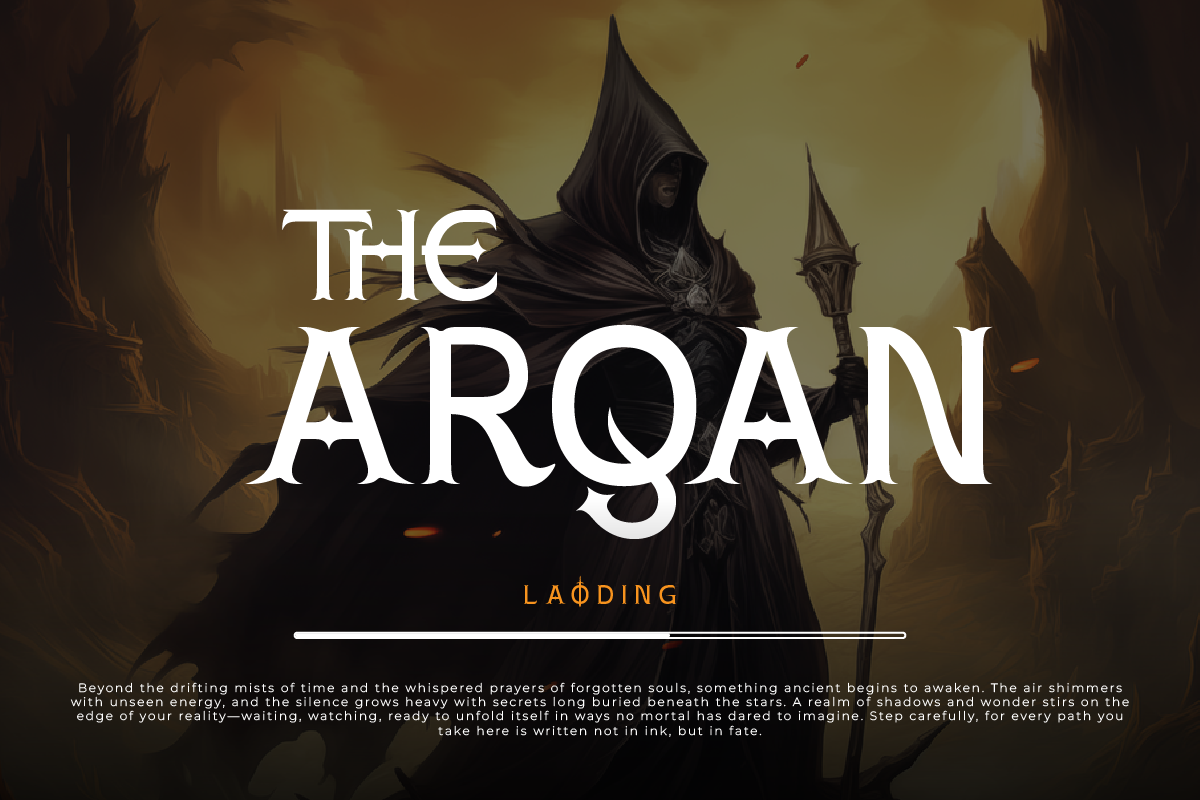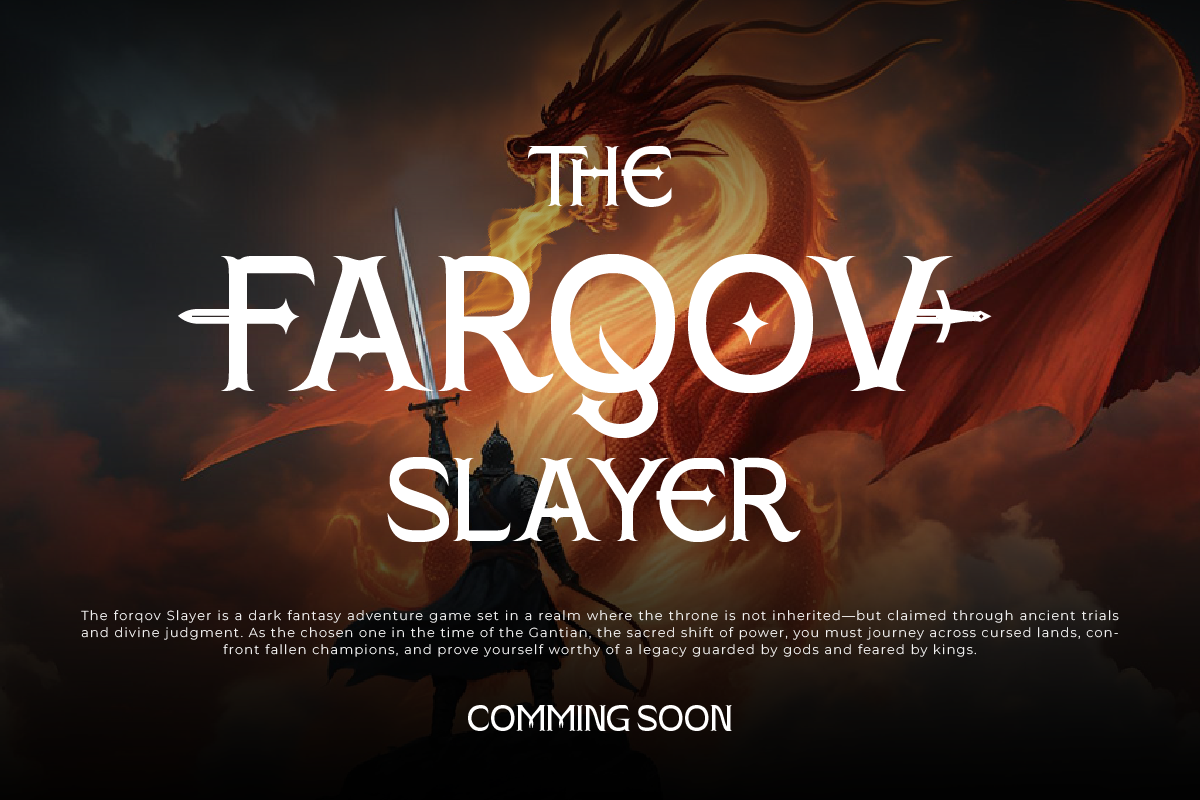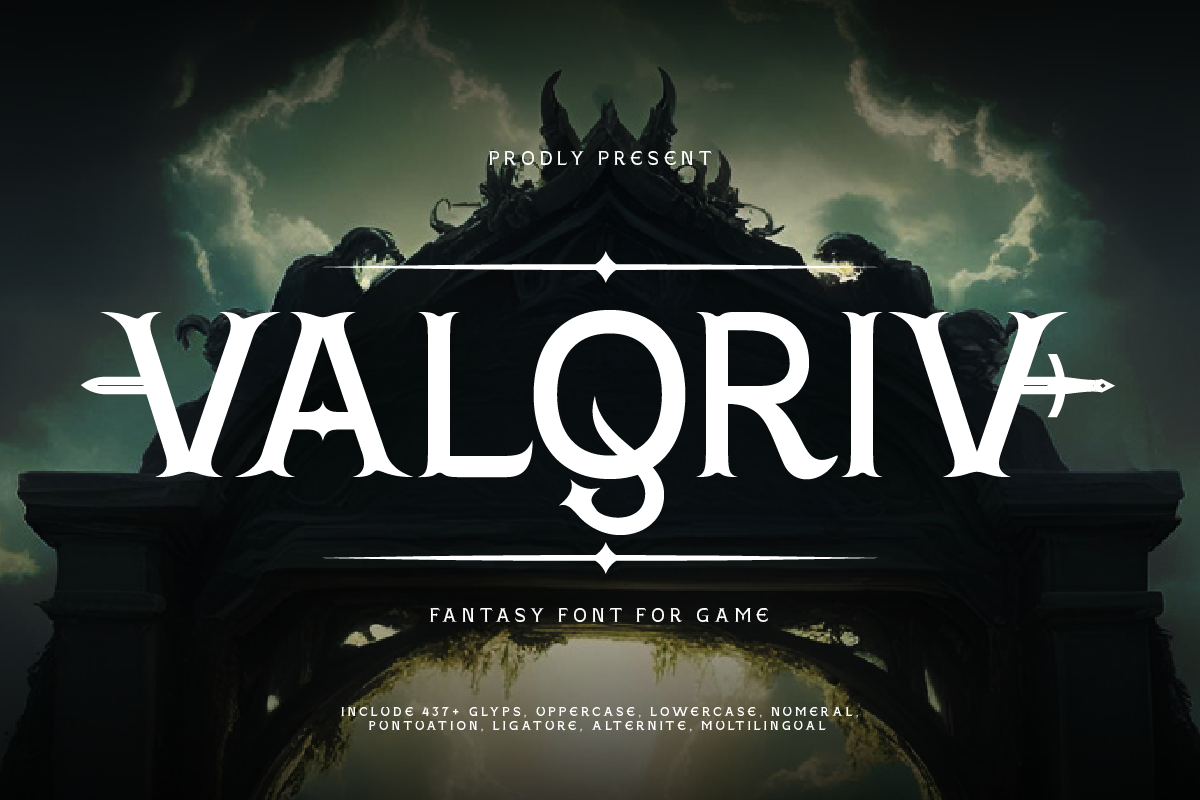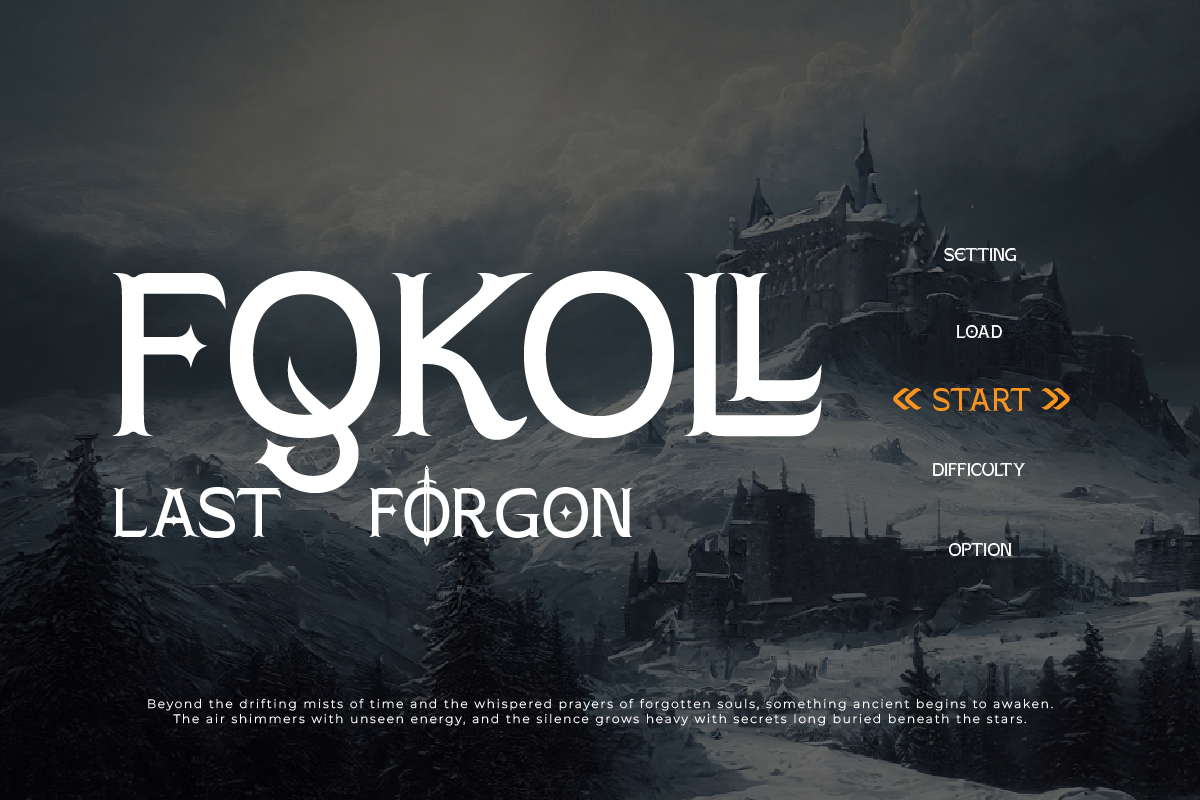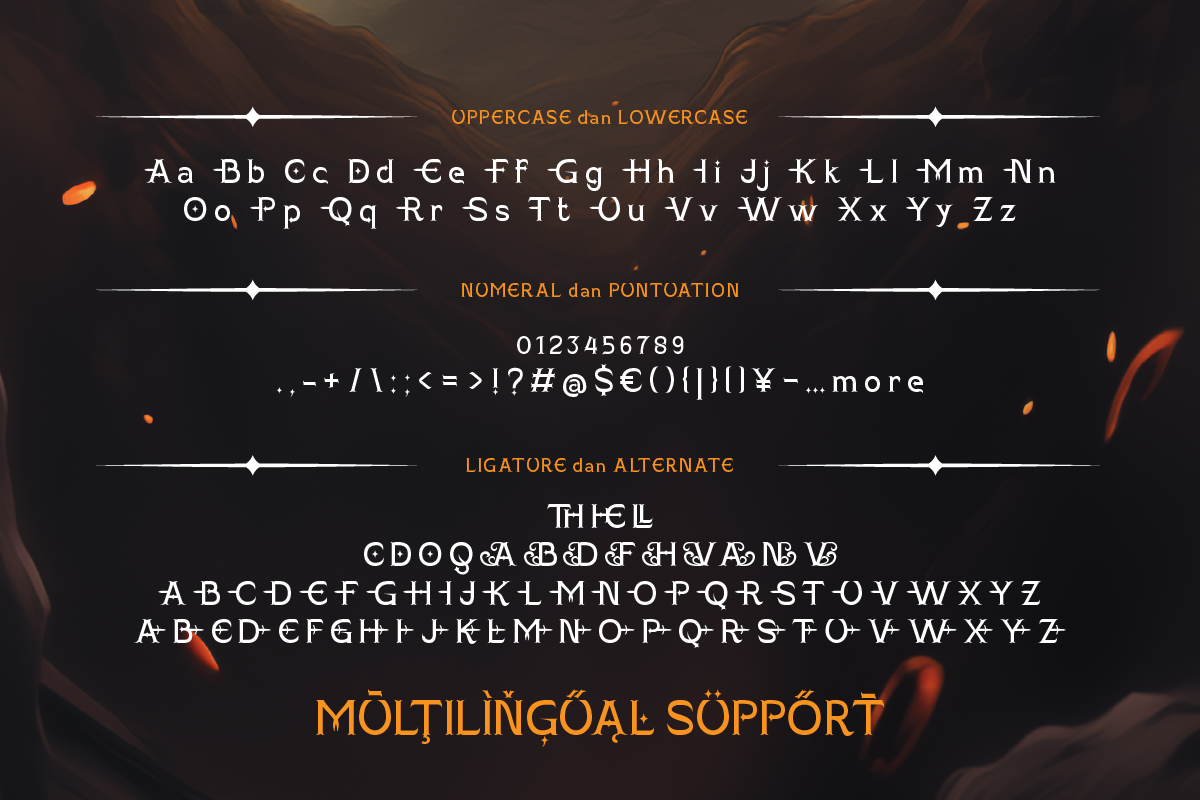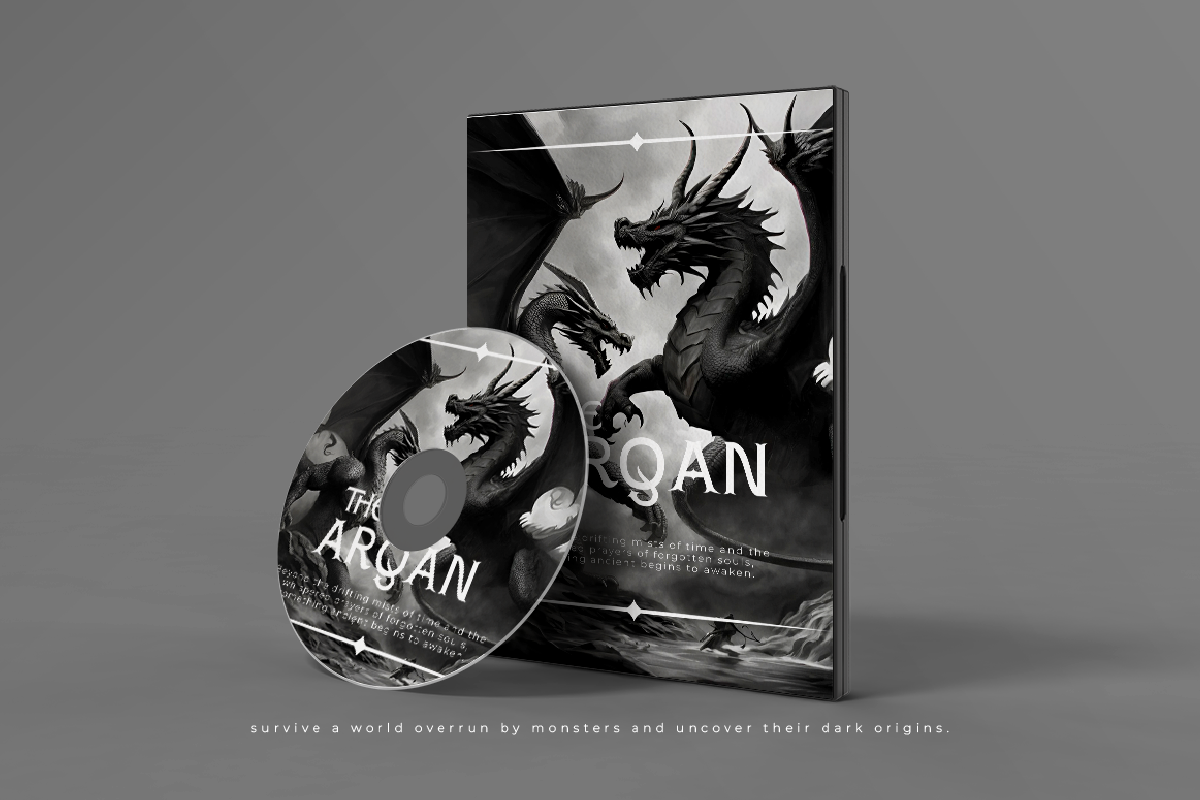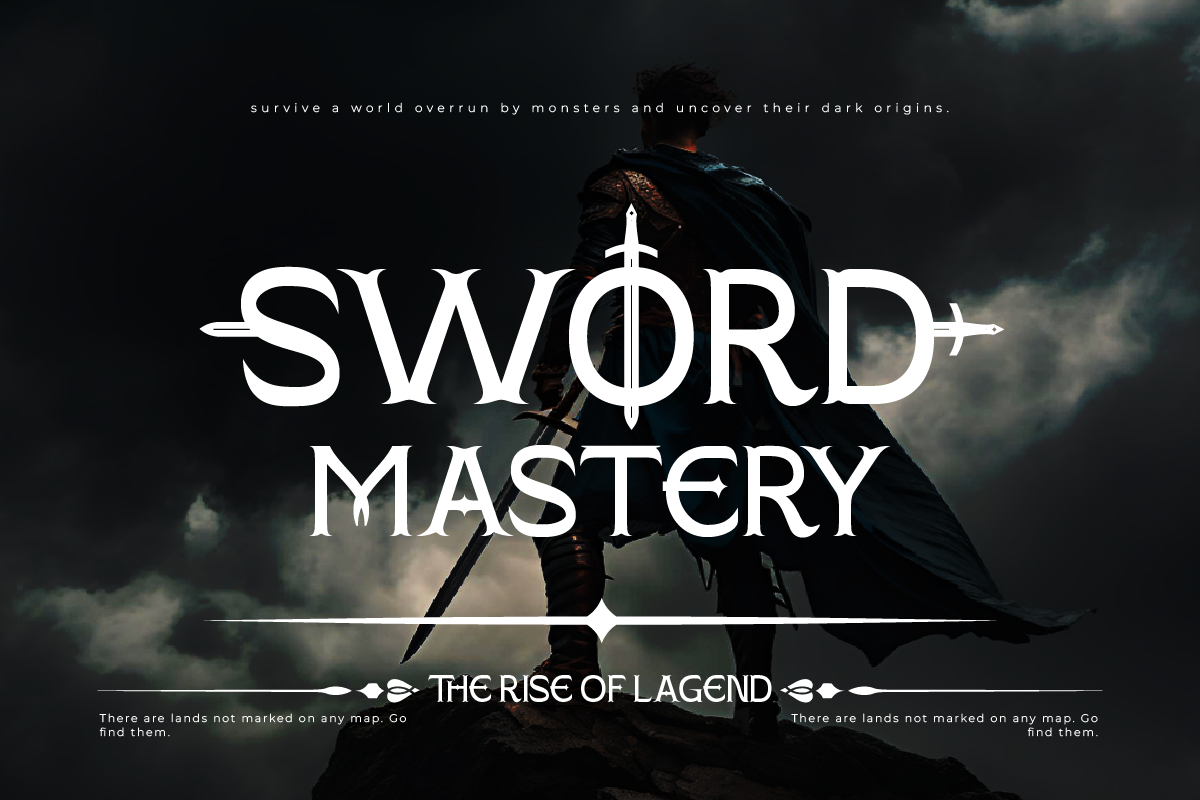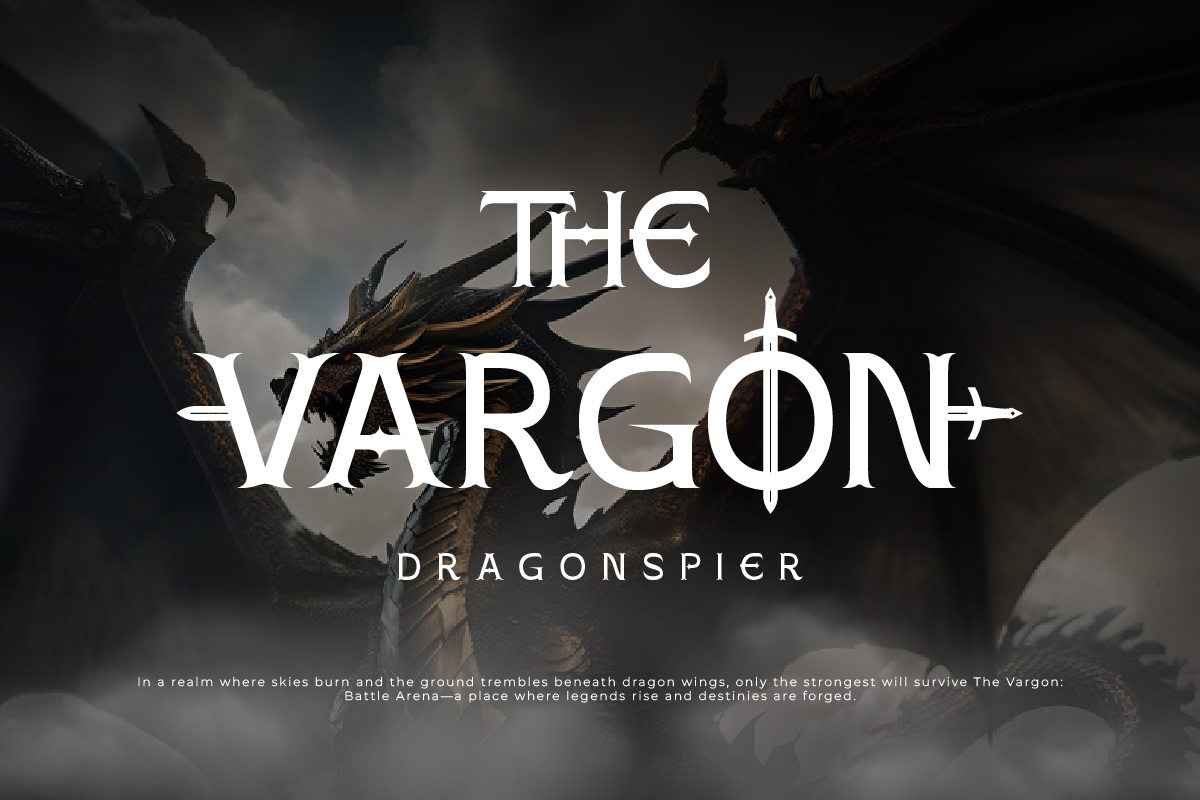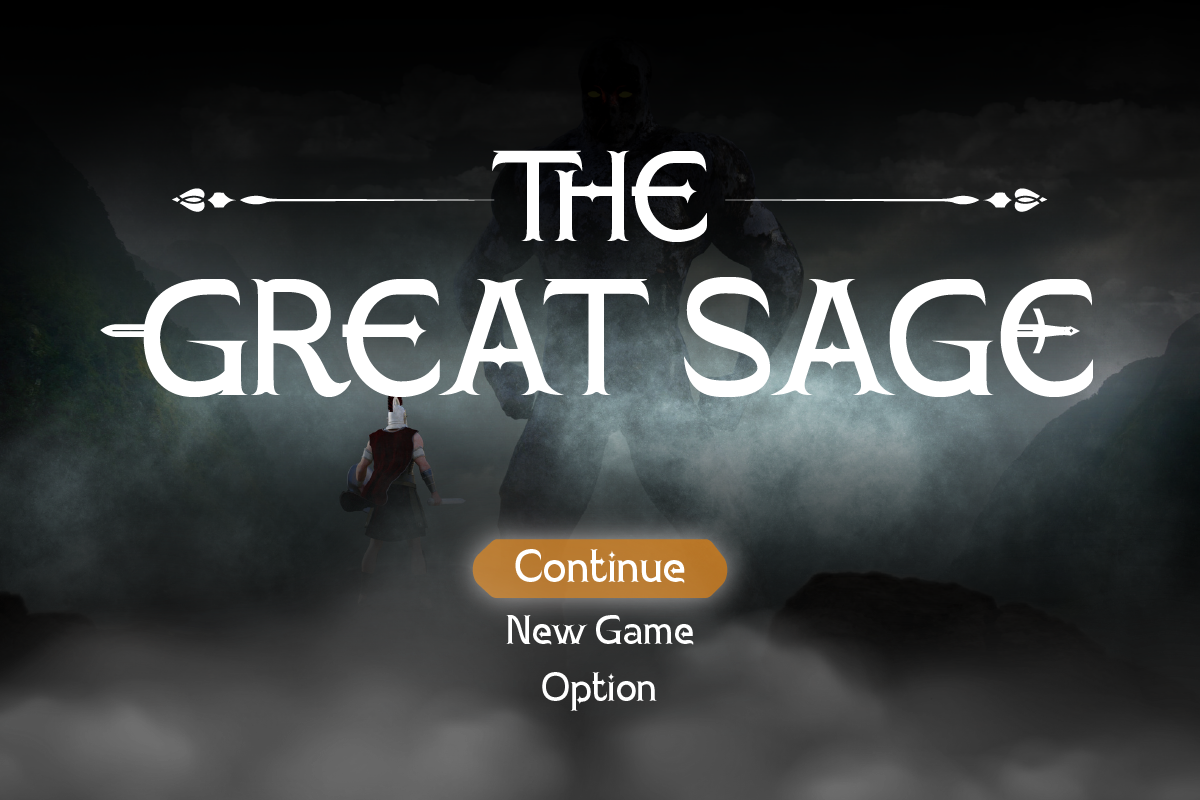
Valqriv - Fantasy Font
Valqriv is a bold and mystical fantasy font designed to bring epic tales and legendary worlds to life. With sharp serifs, intricate details, and a heroic flair, Valqriv evokes the essence of ancient scrolls, magical runes, and forgotten kingdoms. Perfect for fantasy-themed games, book covers, movie titles, or mythical branding, this font delivers powerful storytelling through every letterform.
Whether you're crafting an RPG logo, medieval-themed poster, or high-fantasy merchandise, Valqriv commands attention and sets the tone for an adventurous visual journey. Embrace the spirit of fantasy and let your design rise with Valqriv.
- Fonts include Multilingual: Support for 85 languages. Afrikaans, Albanian, Asu, Basque, Bemba, Bena, Breton, Catalan, Chiga, Cornish, Croatian, Czech, Danish, Dutch, Embu, English, Esperanto, Estonian, Filipino, Finnish, French, Friulian, Galician, Gusii, Hungarian, Indonesian, Irish, Italian, Kabuverdianu, Kalenjin, Kamba, Kikuyu, Kinyarwanda, Latvian, Lithuanian, Lower, Sorbian, Luo, Luxembourgish, Luyia, Machame, Makhuwa-Meetto, Makonde, Malagasy, Maltese, Manx, Meru, Morisyen, North, Ndebele, Norwegian Bokmål, Norwegian Nynorsk, Nyankole, Oromo, Polish, Portuguese, Quechua, Romanian, Romansh, Rombo, Rundi, Rwa, Samburu, Sango, Sangu, Scottish, Gaelic, Sena, Serbian, Shambala, Shona, Slovak, Slovenian, Soga, Somali, Spanish, Swahili, Swedish, Swiss German, Taita, Teso, Turkish, Upper Sorbian, Uzbek (Latin), Volapük, Vunjo, Walser, Zulu.